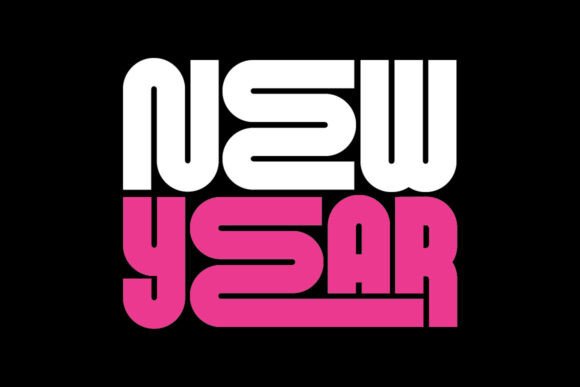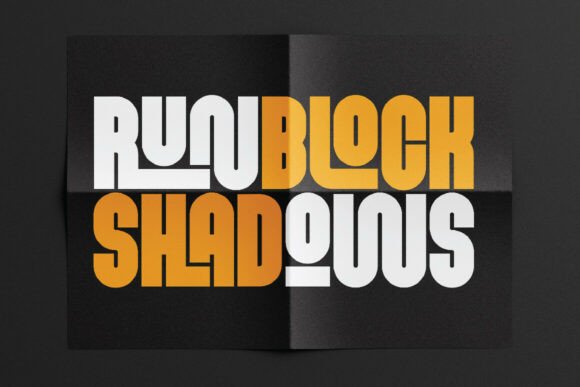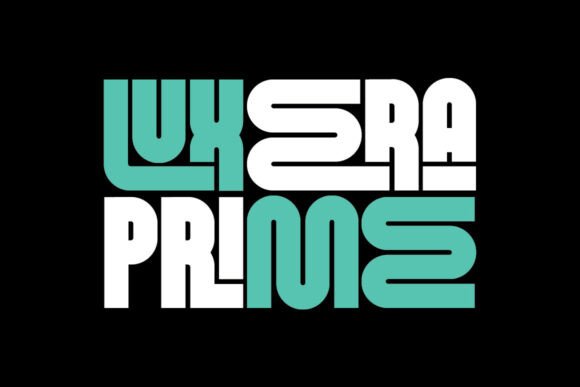
Introduction to Monblock Font
Monblock Font is a strong and modern display font with a bold geometric style.
Perfect for headlines, posters, branding, logos, and creative projects Monblock includes an extensive set of stylistic options with 80 ligatures and alternative glyphs, plus underscore-styled letters for added personality.
Key Features of Monblock Font